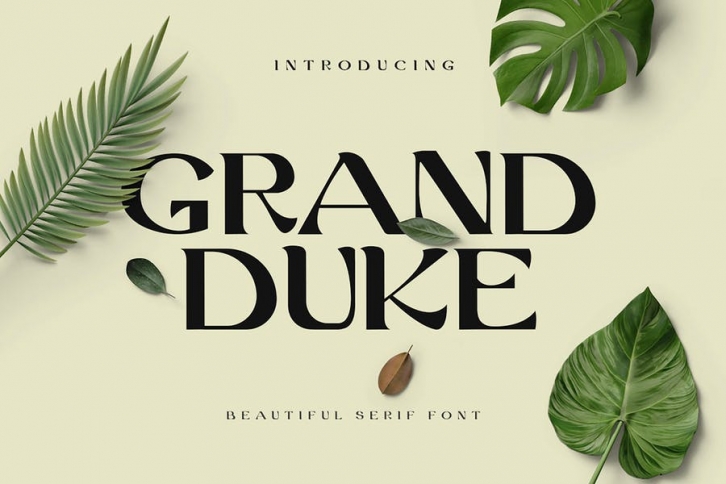
Grand Duke Beautiful Serif Font Download
A stylish and beautiful serif font with an elegant feel. Grand Duke font is perfect for display projects such as quoted text, postcard, logo, presentation, nature-theme, product packaging, magazine and much more. It's also perfect for beautiful and botanical themed - or a stylish text overlay to any background image.
Main Features:
• Uppercase & Lowercase letters
• Numbering and Punctuation